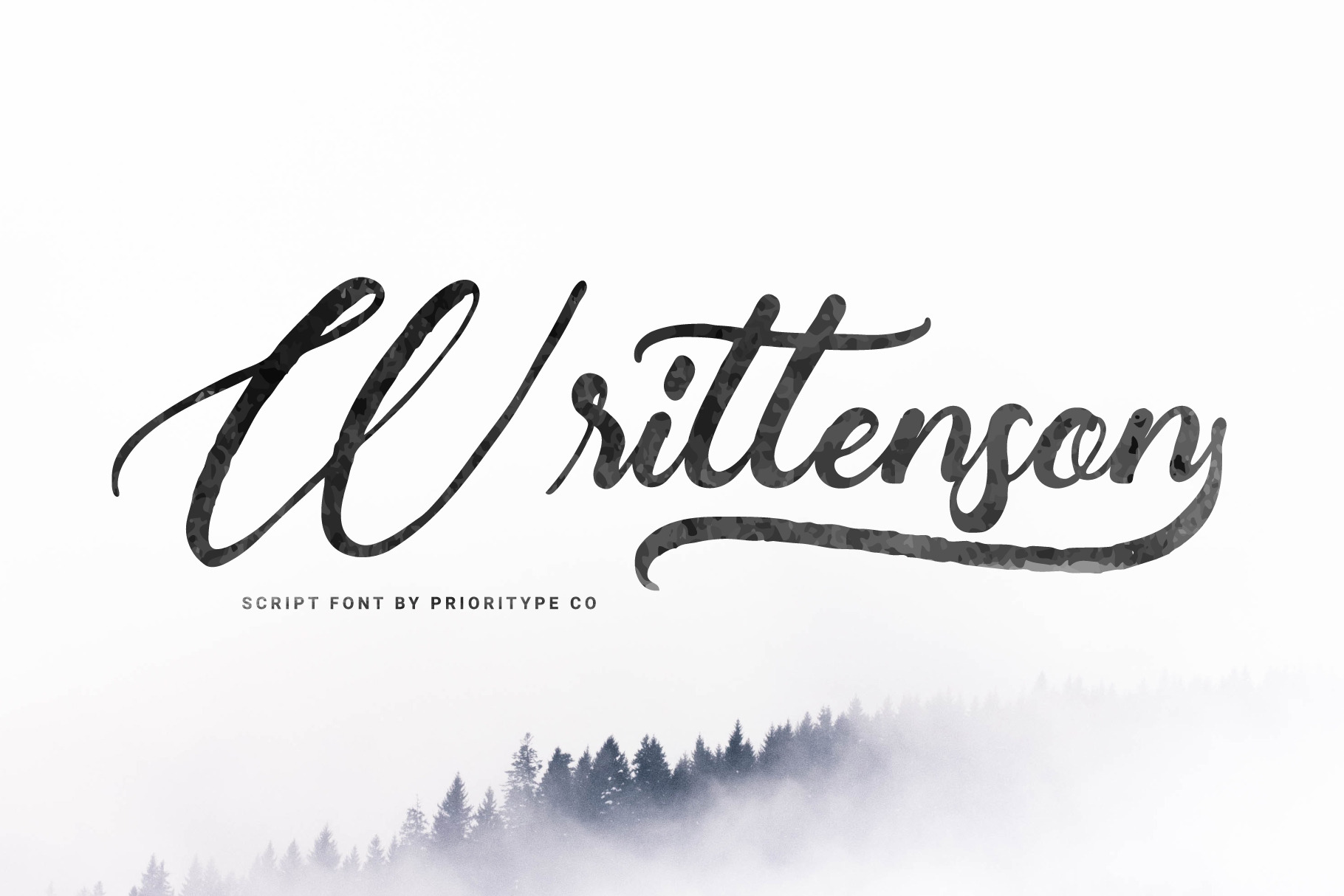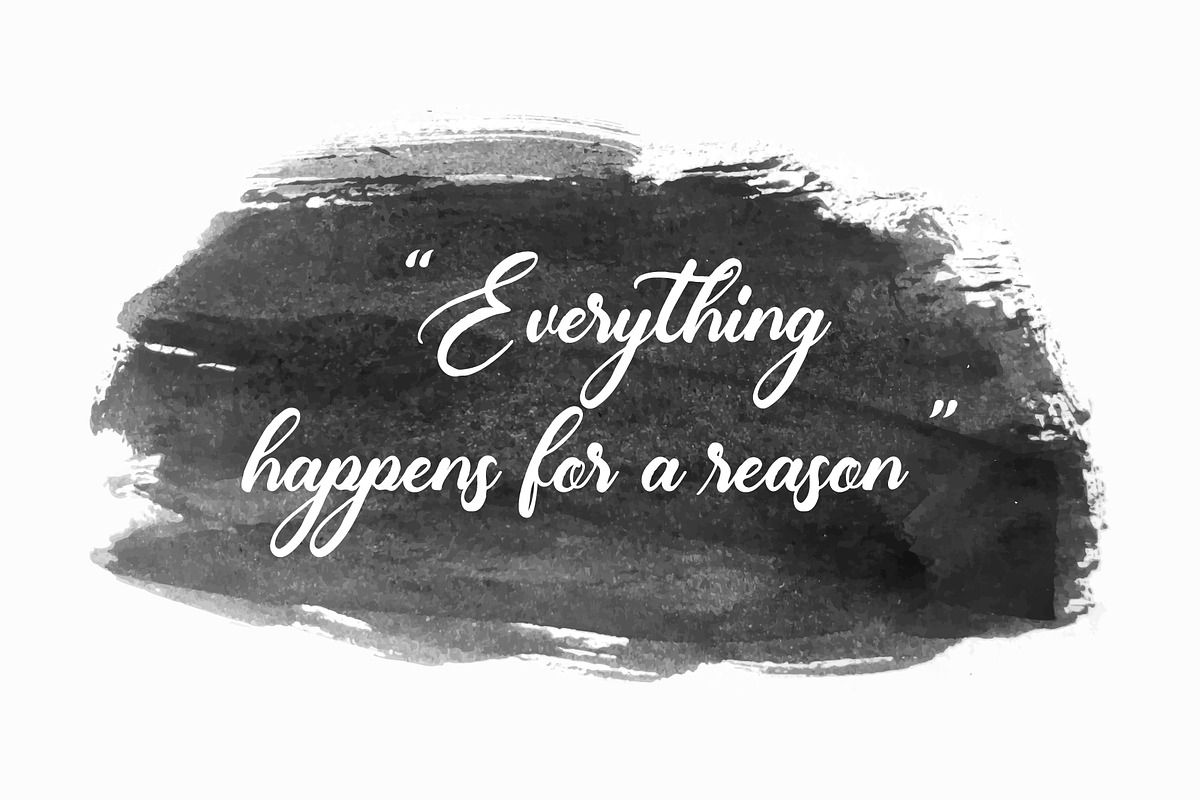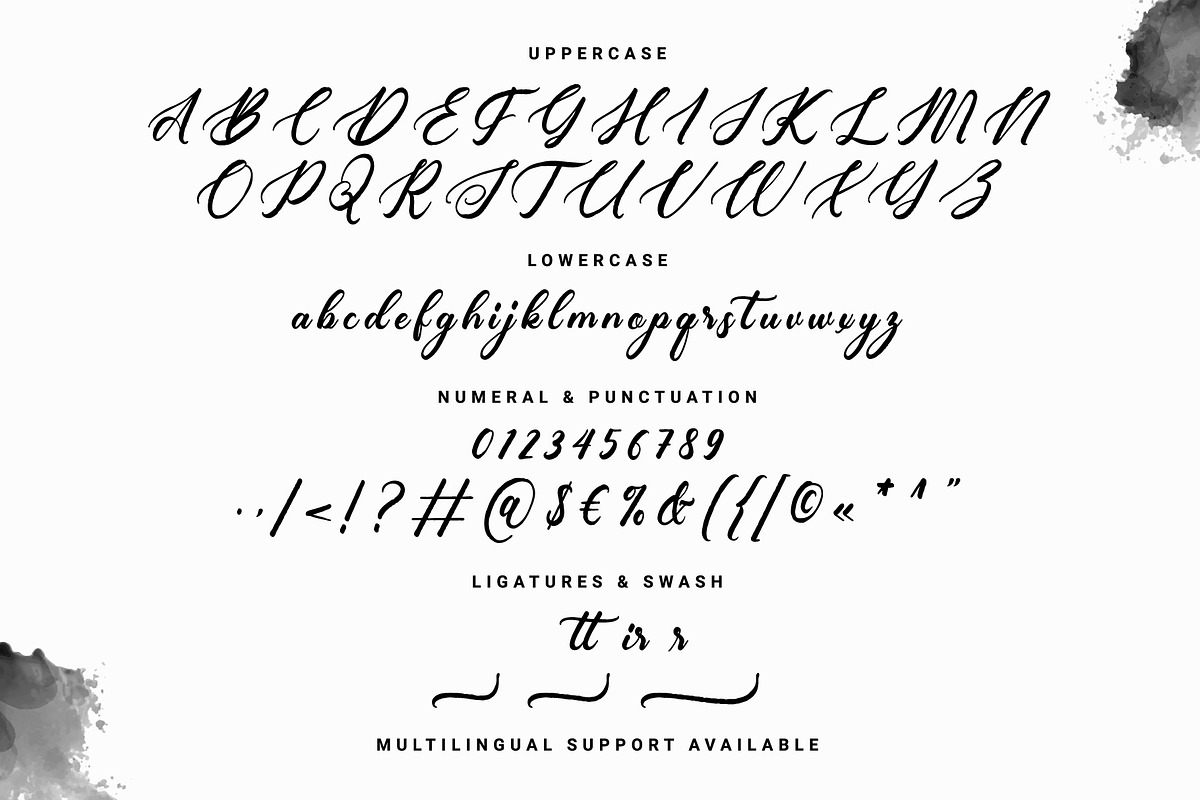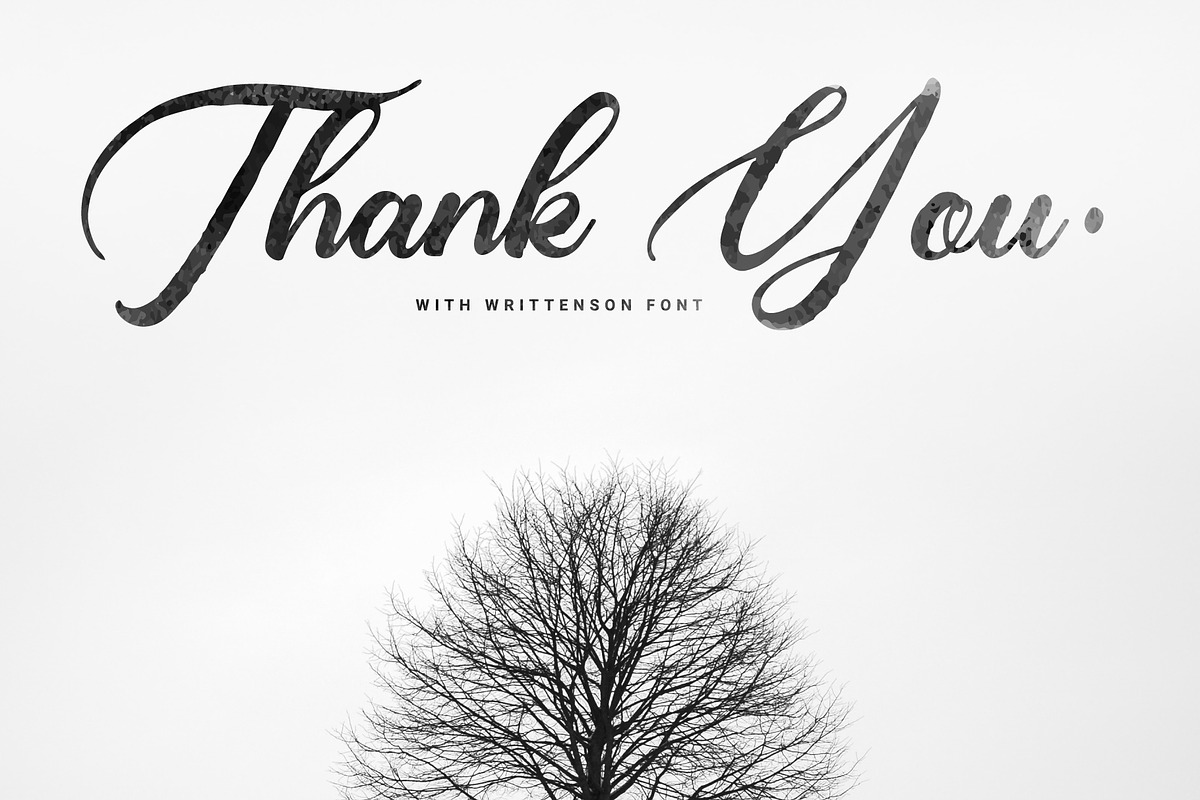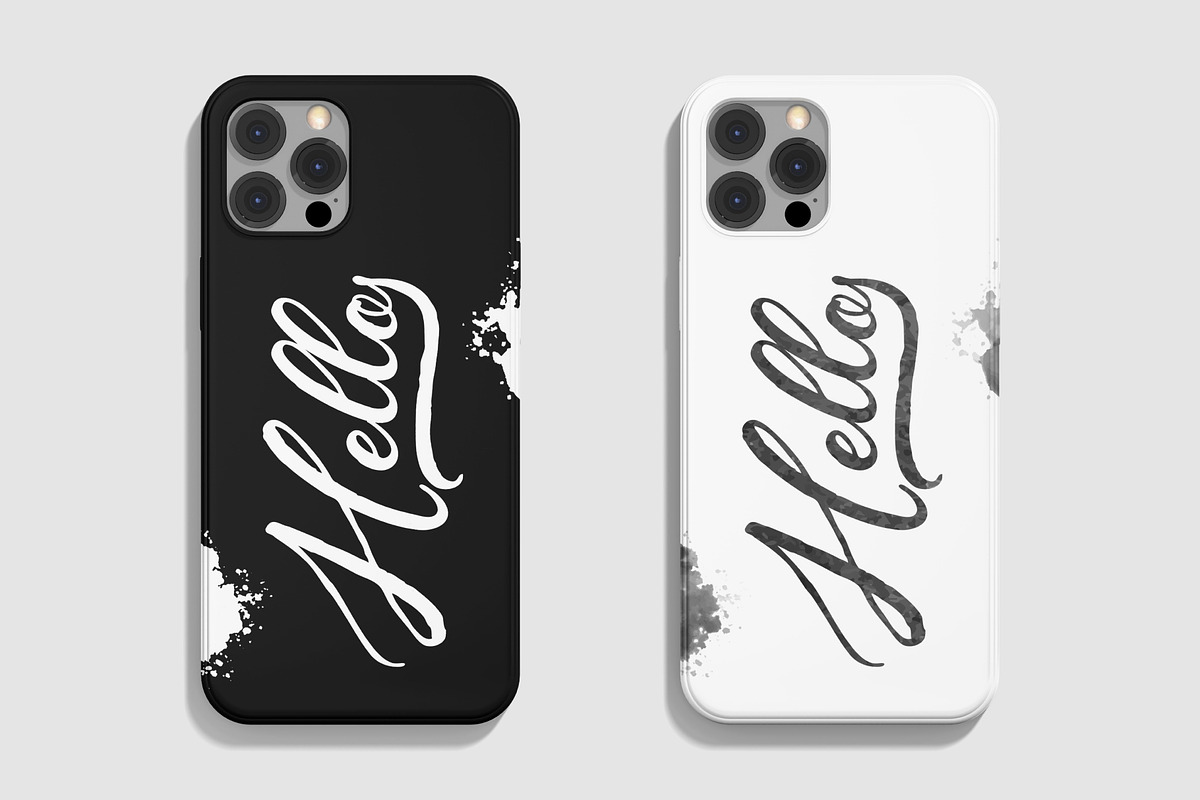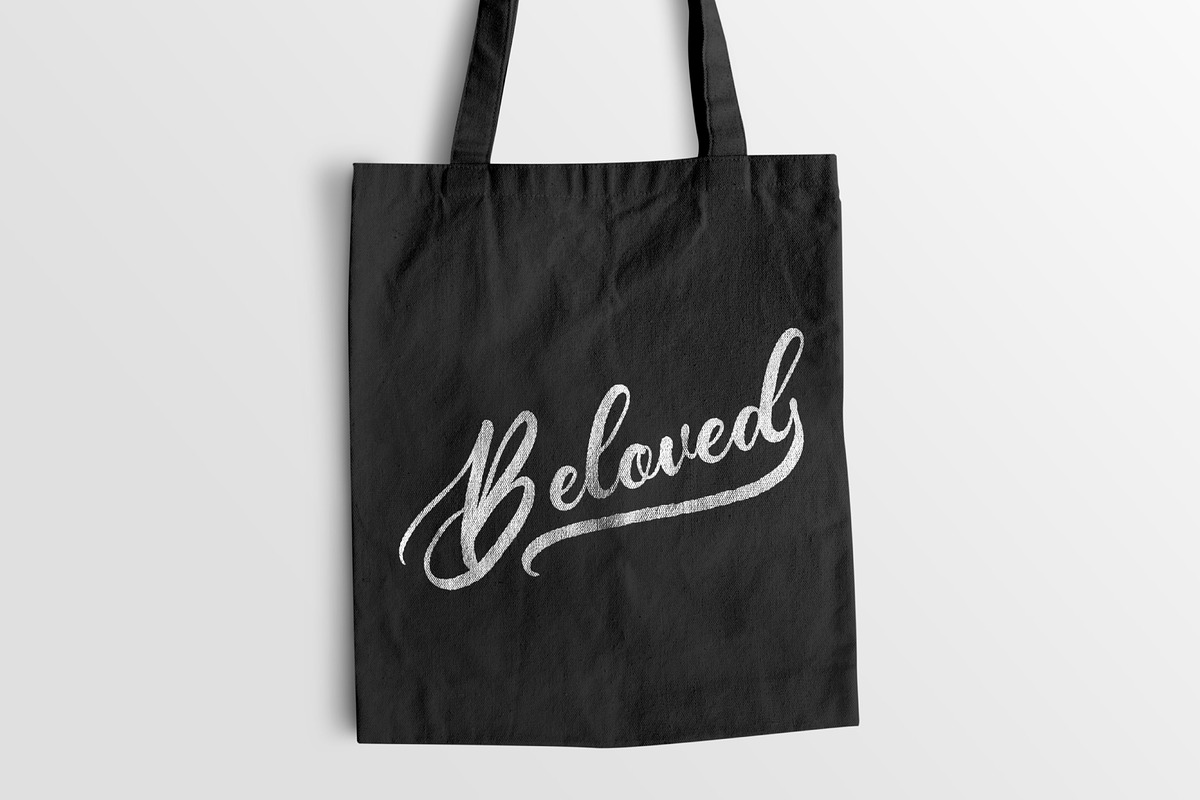
Writtenson - Rough Script Font
Writtenson - Rough Script Font.
Coarse-textured script font with indulgent swash for your designs. Great for logos, merchandise, quotes and more.
- Features: Uppercase, Lowercase, Numeral, Punctuation, Multilingual, Ligatures & Alternates.